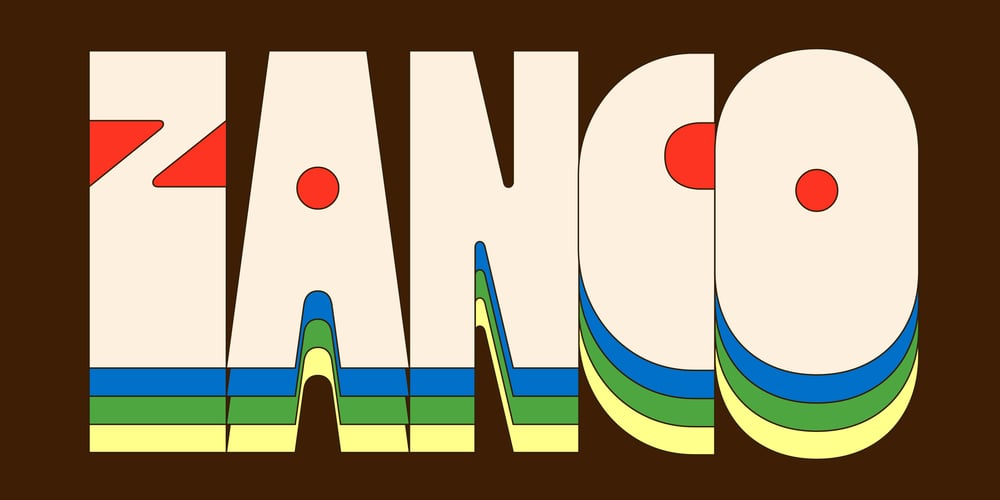
Zanco
Zanco font
Zanco Font Family was designed by Rodrigo Fuenzalida, Alexander Wright and published by In-House International. Zanco contains 7 styles and family package options. Zanco is a celebration of delicious contradictions; of elegance and awkwardness, youth and sophistication, all rolled up into a single variable display type. Standing tall and narrow, it features stressed curves, softened internal angles and unconventional weight distribution that effortlessly falls just right. The typeface goes from lanky to heavy, thickening shadows filling in the bottoms halves, which is especially lovely on interlocking descenders. The typeface is named after its long, stilt-like limbs; the zancos worn by acrobats towering above joyful crowds. Across the full family, characters stand tall in a range of styles: from heavy-footed and funky platforms to slim lifts that lend it an ethereal, art nouveau vibe. The effect is curved, melty, and a little nostalgic. You get the relaxed, versatile, legible, sensuous and useful, all in one. It’s perfect for brand identities with heart, packaging, and genuine, effortless messaging. Posters, billboards and motion graphics that fly off the screen. Zanco was designed by Alexander Wright at In-House Int’l studio foundry, and developed by Rodrigo Fuenzalida. In-House International is a creative agency delivering branding breakthroughs for game changers.